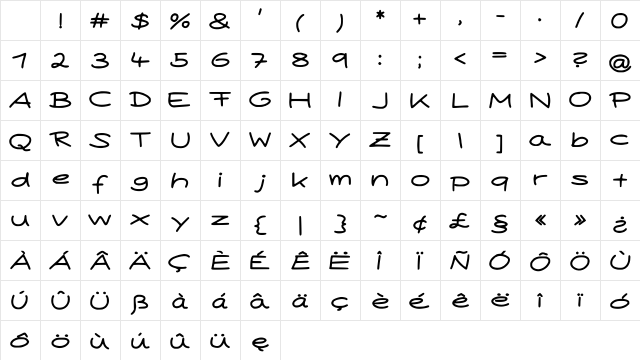
Paper Plane Heavy Free Font
Paper Plane Heavy
Paper Plane Family
Paper Plane Heavy
Complete Paper Plane Heavy glyph index. Displaying only characters natively supported by Paper Plane Heavy font.
Design Context for Paper Plane
Paper Plane is a composed and adaptable typeface that performs quietly and consistently across a wide range of design contexts.